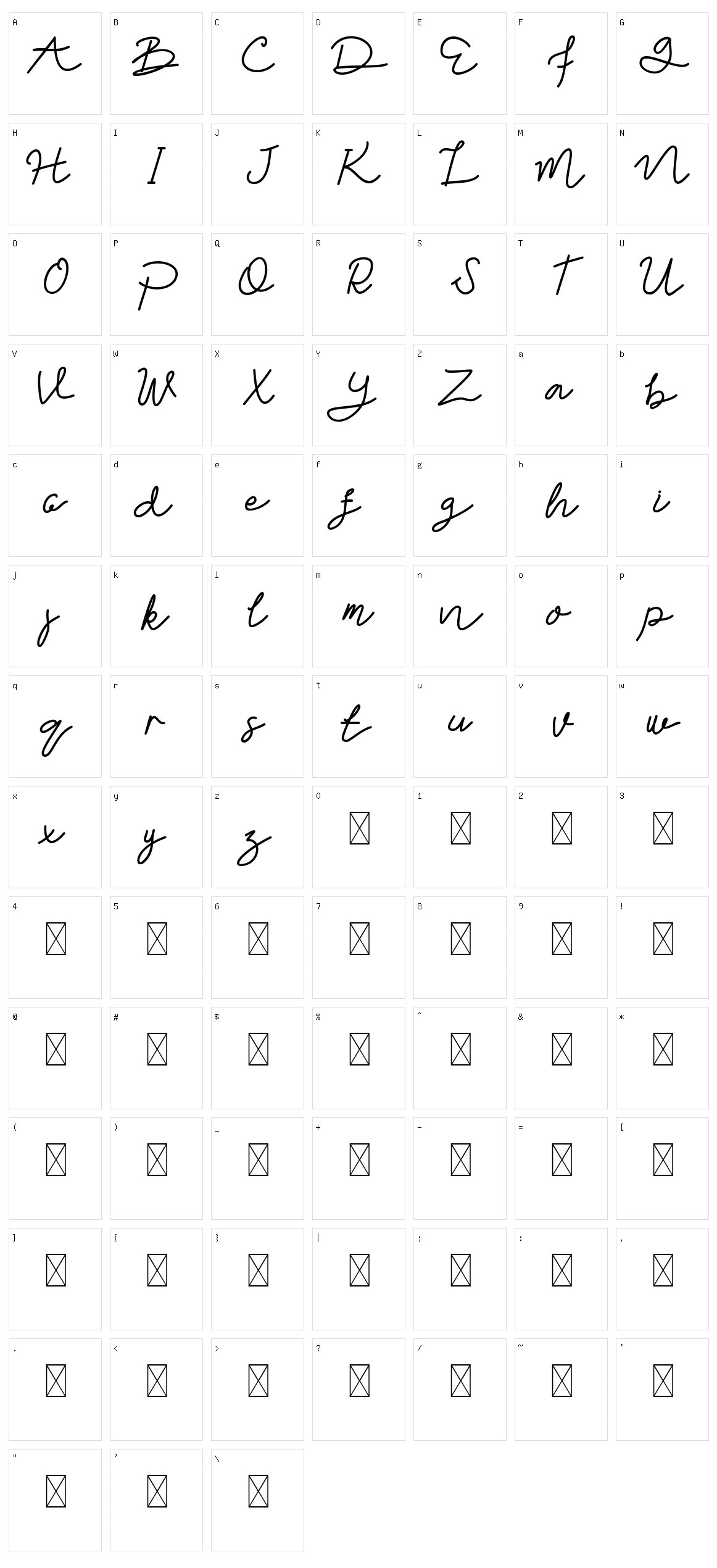
The free font Zakilla is carefully designed by Edric Studio, showcasing a thoughtful balance of creativity and usability and falls under the Script font style. When you download the ZIP file, it contains only 42.7 KB of font files, making it lightweight and quick to download. Please review the license details below to understand permitted usage and distribution rights. If license information is not available, we recommend using this font for personal projects only or contacting the author directly for commercial usage permissions.